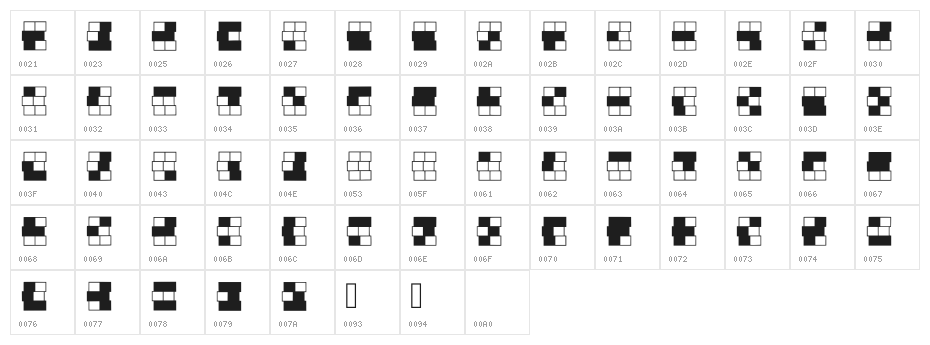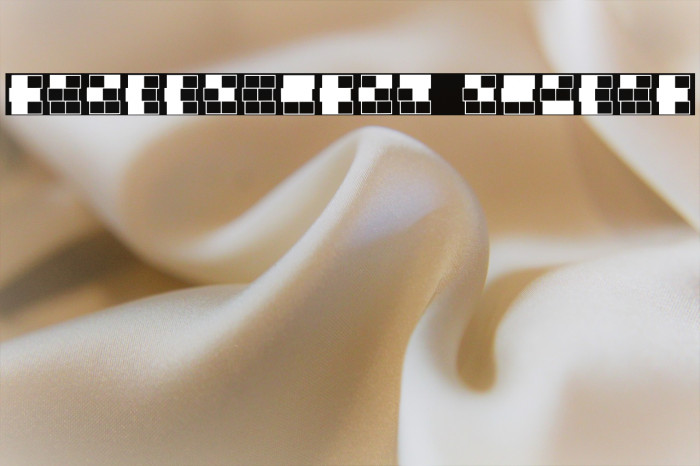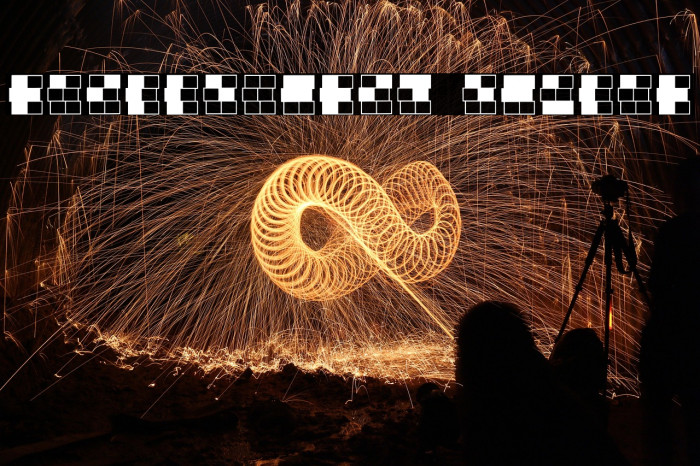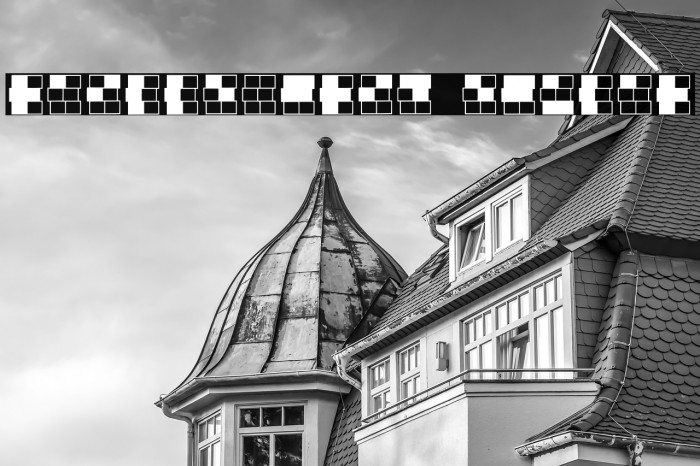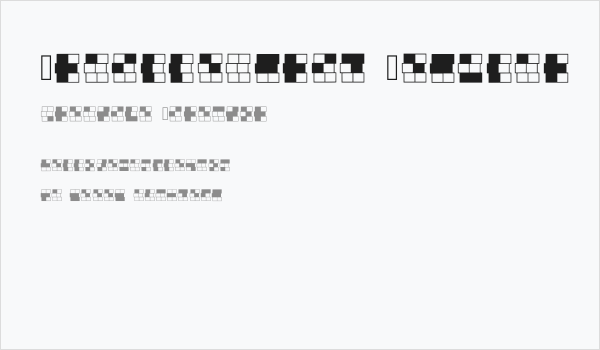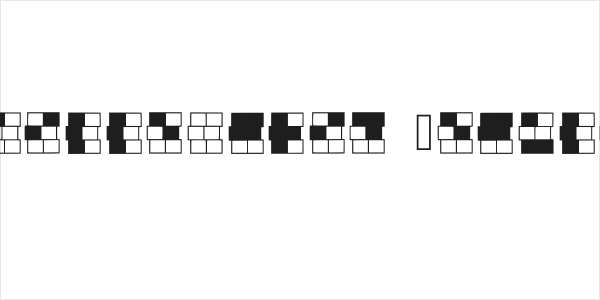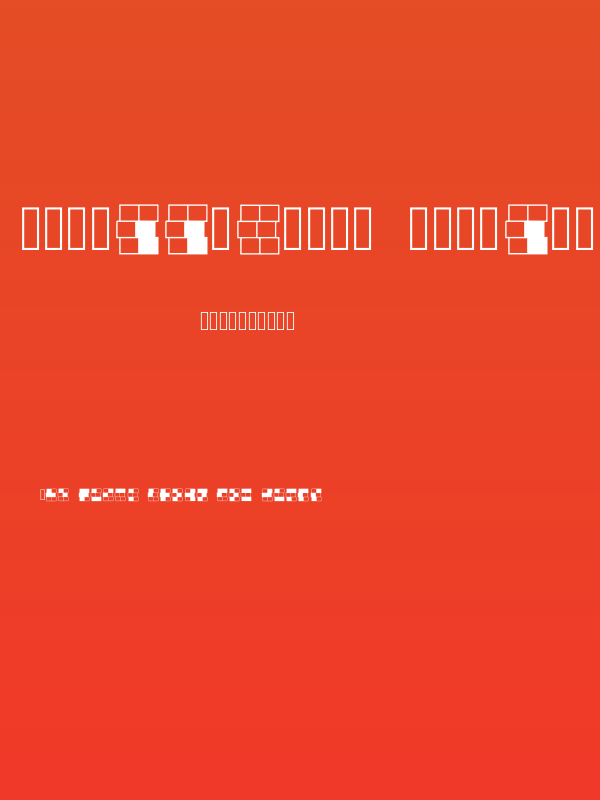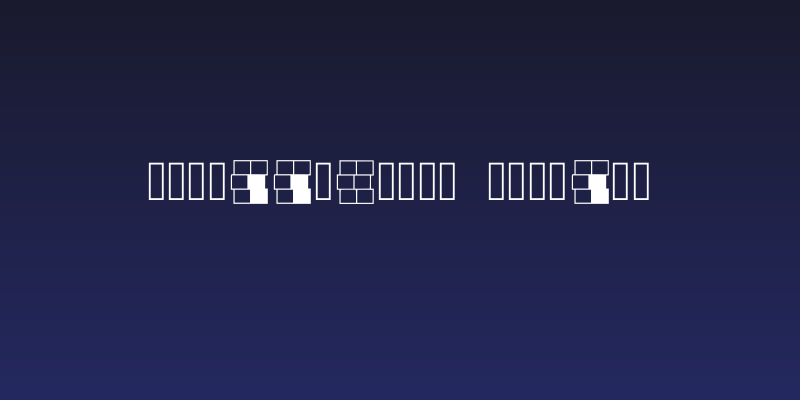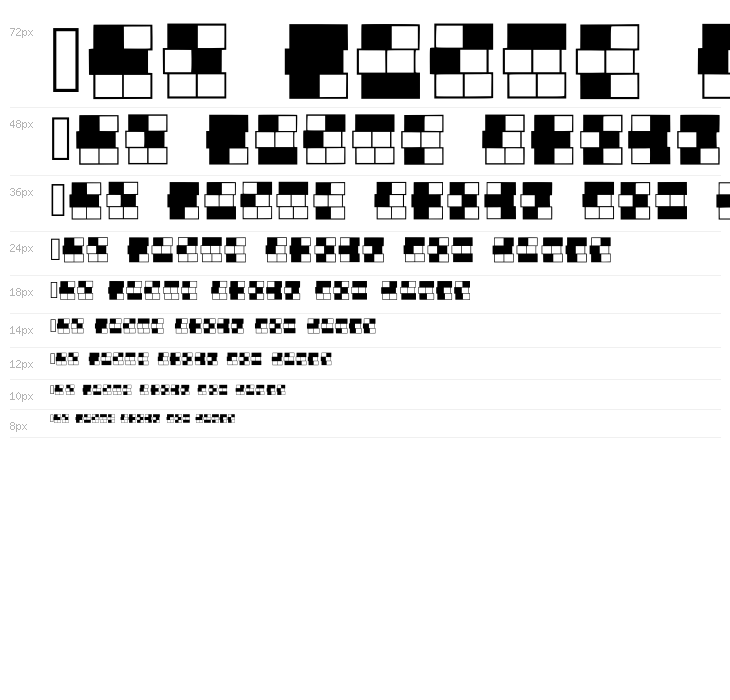
Braille_grid Regular Font
| 全体的なスタイル | Modern, Abstract |
| 用途 | Logos, Posters, Artistic Displays |
| おすすめプロジェクト | Ideal for modern art projects, experimental design work, or any creative endeavor that seeks a bold, abstract aesthetic. |